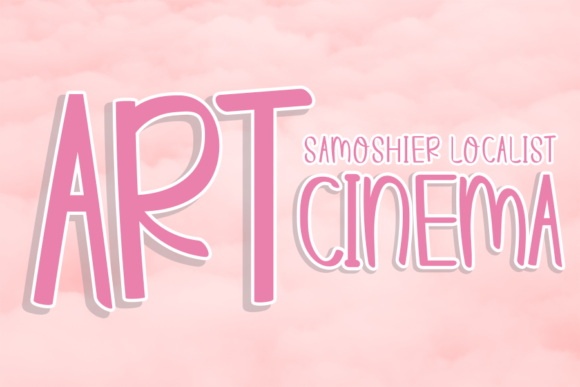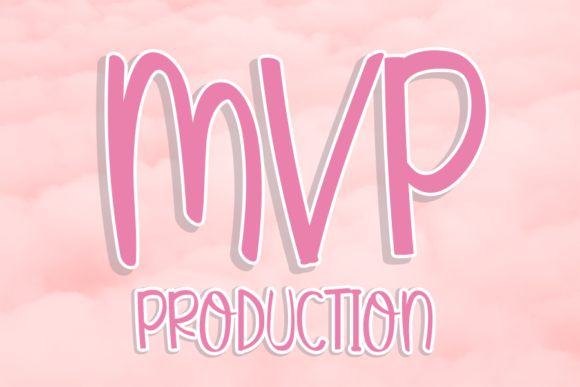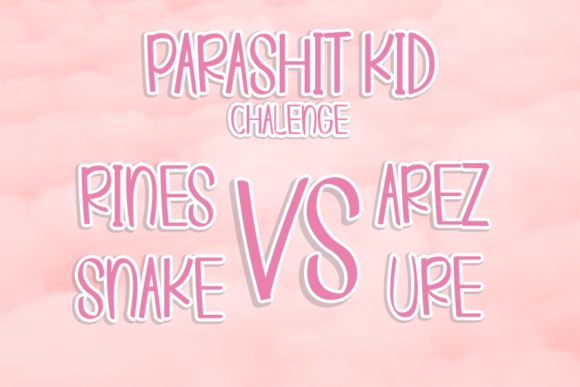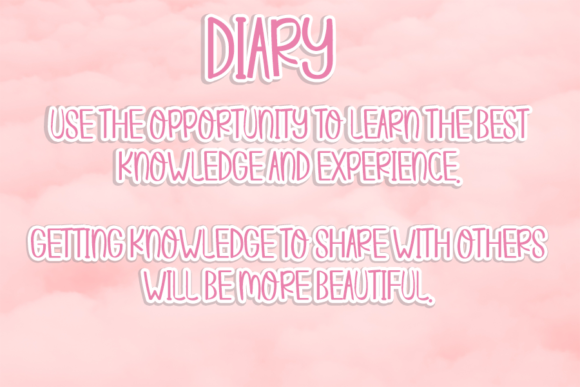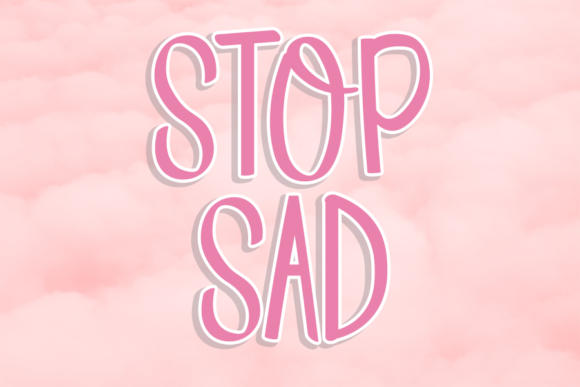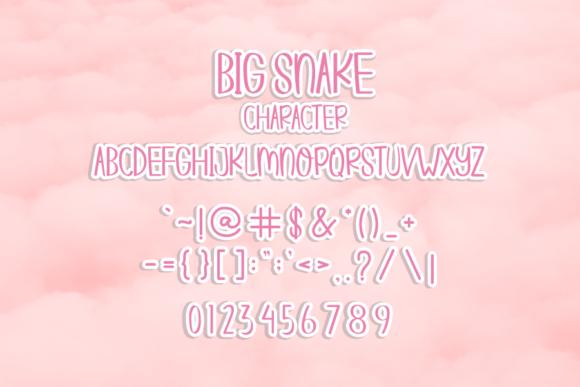
Have you ever been scrolling through your social media feeds, and suddenly, you see a post that just stands out from the rest? Maybe it’s a beautifully crafted quote, a cute design, or a clever illustration – whatever it is, it catches your eye and makes you want to create something just like it.
For designers and creatives, finding the right font can be the key to unlocking that special something. And that’s where Big Snake Font comes in – a cute and casual handwritten font with an incredibly friendly feel. Whether you’re looking to add a personal touch to your Instagram posts or create calligraphy scripts for your DIY projects, this font will turn any creative idea into a true piece of art.
Big Snake Font Key Features
- Font Family: Big Snake is a unique, handwritten font that adds a touch of elegance and sophistication to any design.
- Unique Characteristics: Features a distinctive, hand-drawn style with varying line widths, subtle imperfections, and a sense of movement, giving it a dynamic and expressive feel.
Big Snake Font Review
Overall, I was quite excited to dive into the “Big Snake Font” and see what it had to offer. I’m happy to say that there are some great things about this font, but there are also some limitations.
- Unique design: The Big Snake Font has a truly one-of-a-kind look that will set your designs apart from the crowd.
- High contrast: The font’s bold lines and striking color combinations make it perfect for creating eye-catching headlines.
- Customizable: The font offers a range of customization options, allowing you to tailor it to fit your specific design needs.
- Limited legibility: At smaller font sizes, the Big Snake Font can be quite difficult to read, which may limit its use in body text.
- Not suitable for long blocks of text: The font’s unique design and high contrast make it better suited for short, attention-grabbing headlines rather than large blocks of text.
Overall, the Big Snake Font is a bold and eye-catching choice for designers looking to make a statement. While it may have some limitations, its unique design and customization options make it a valuable addition to any design toolkit.
Big Snake Font is ideal for creating bold, eye-catching designs. Use it for:
- Posters and flyers for concerts, events, and promotions
- Typography-based art and graphics
Remember to experiment with different font sizes, colors, and styles to get the most out of Big Snake Font.